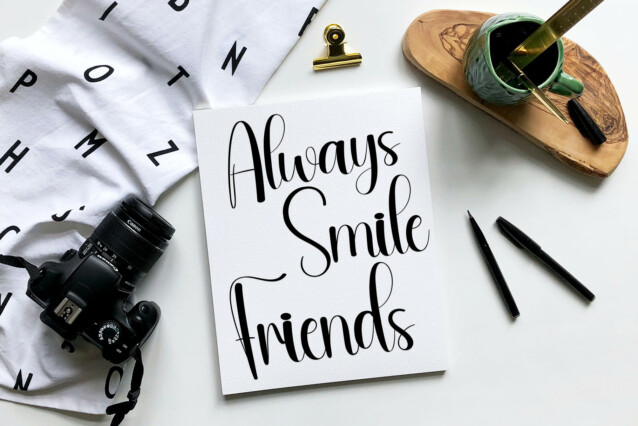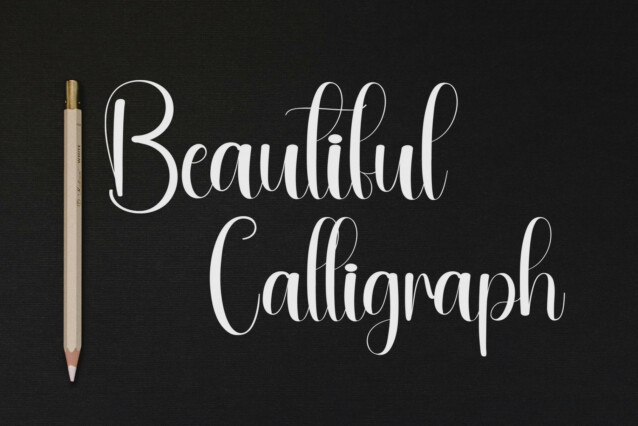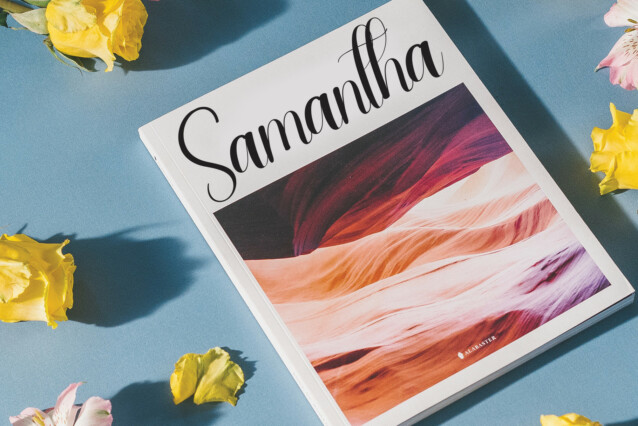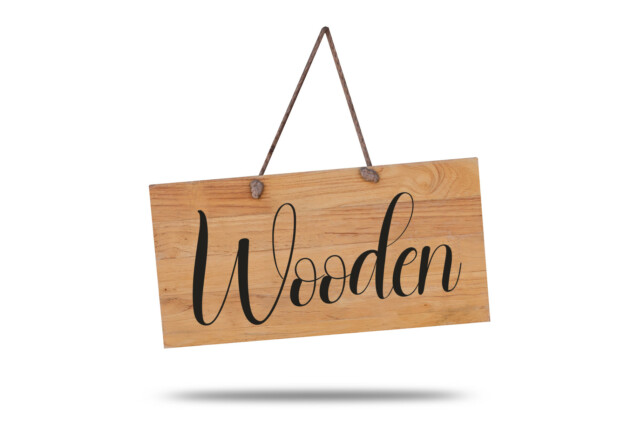
Belliana Lovely Script Font is a sweet and friendly handwritten display font. Cute and fun, this font is ideal for writing wedding invitations, cards, or any other design that might need a playful touch!